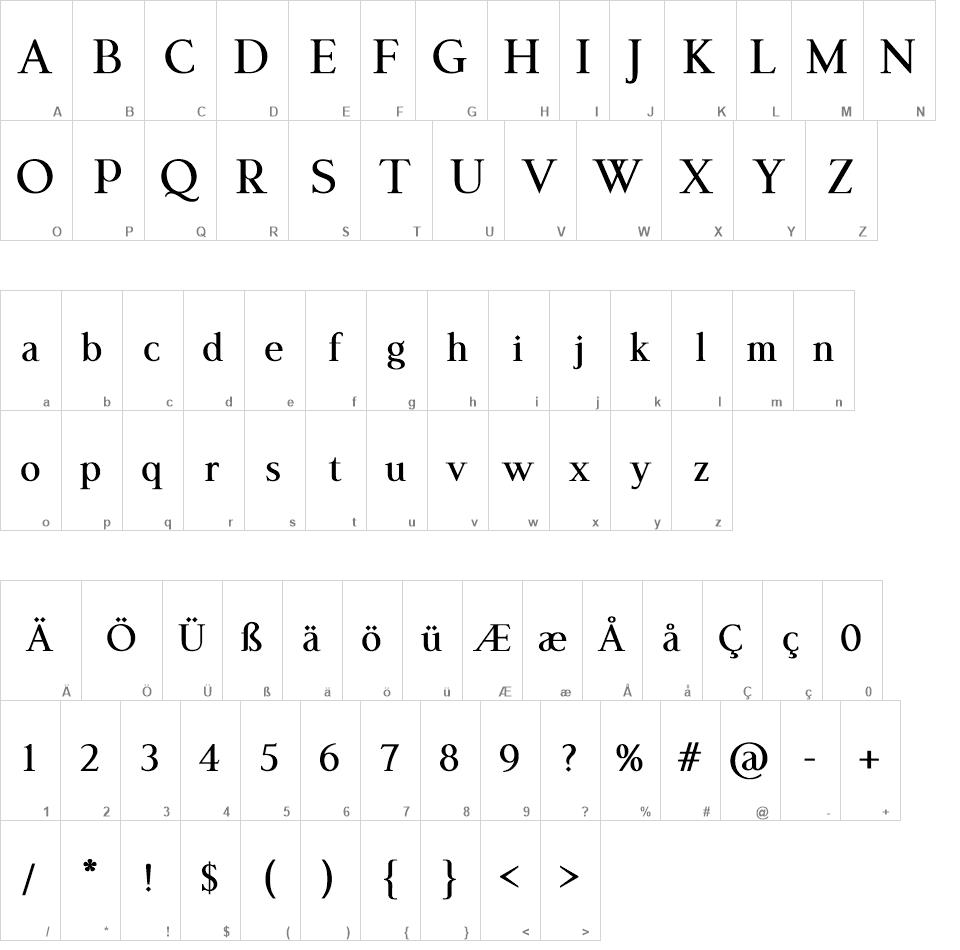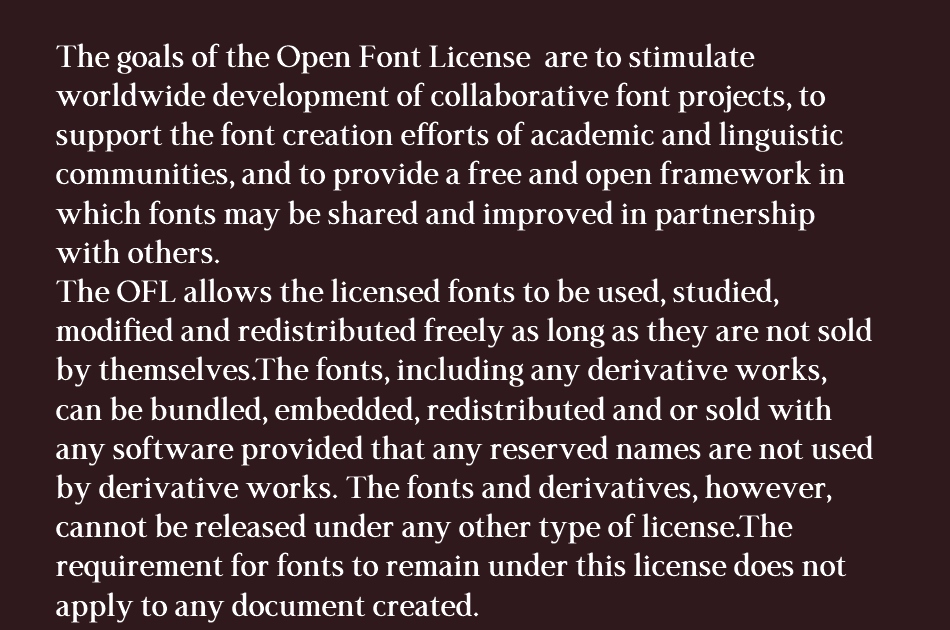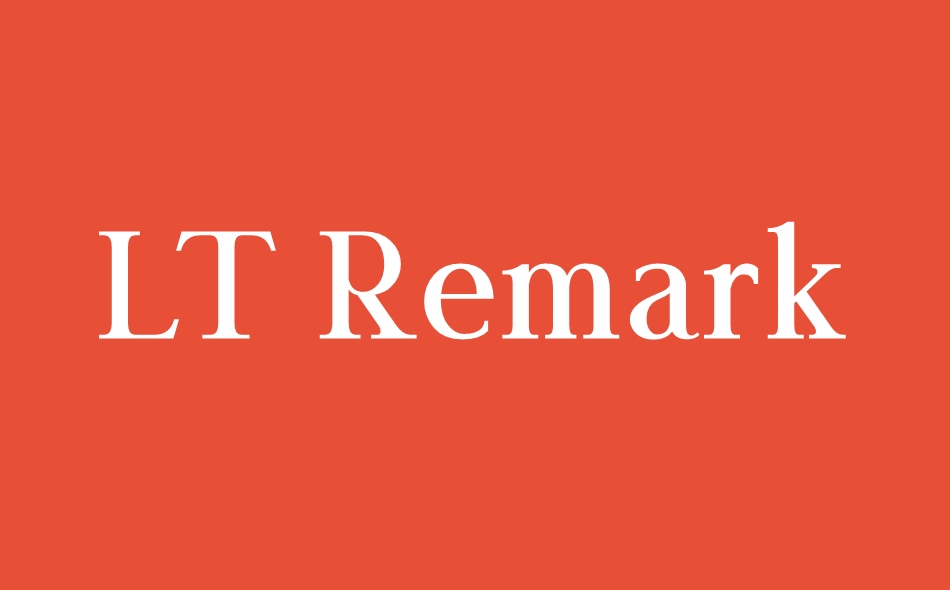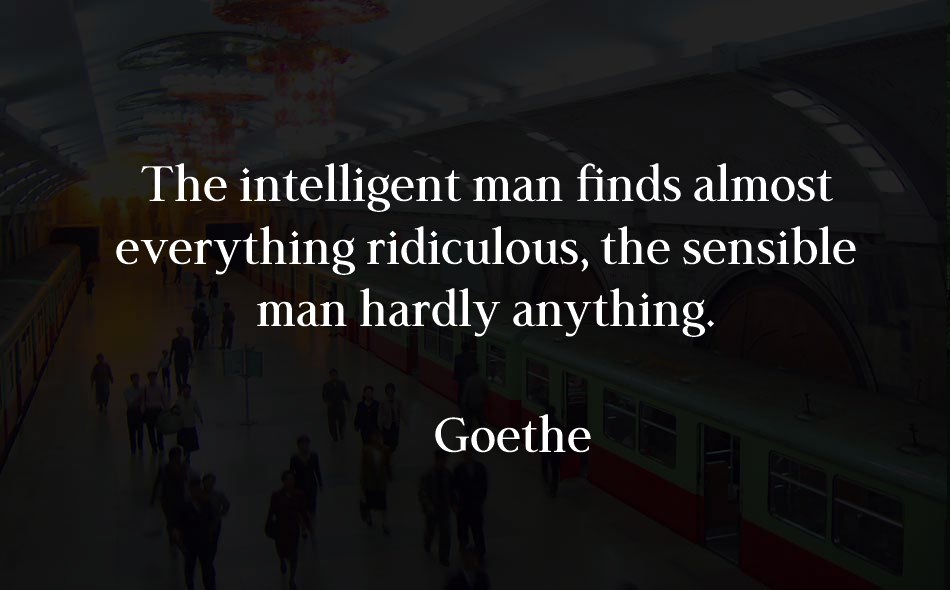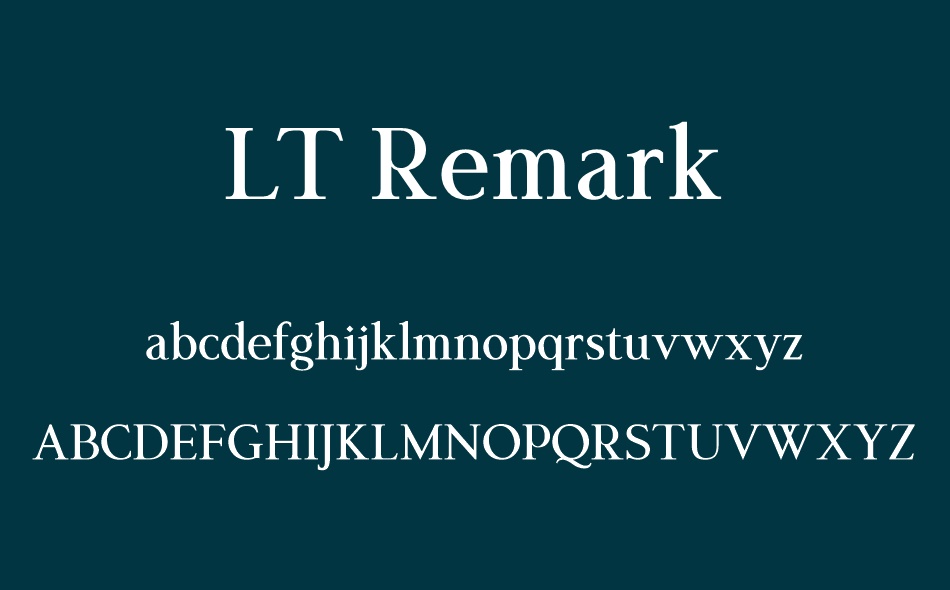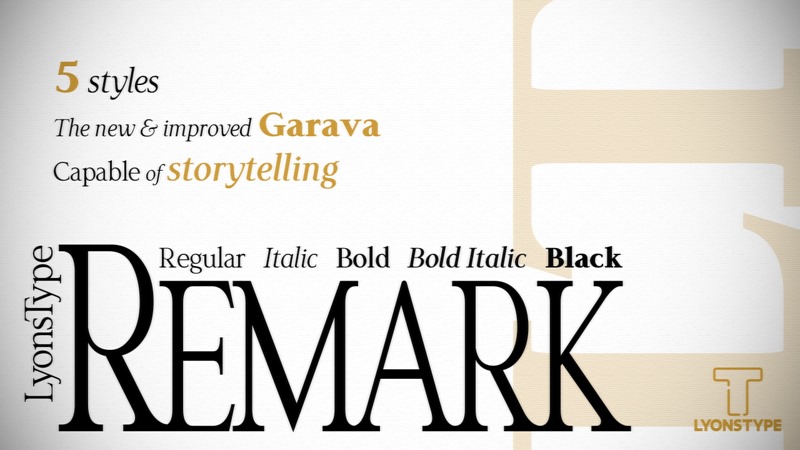
LyonsType introduces a storytelling-friendly font that goes by the name of "Remark" - which of course pays an accurate reference to one of Pesala's common fonts [that is mostly used for High-Logic's default font creating process with outlines] called Garava.
The beneficial elements of the font consist of the fact that unlike Garava, it supports any Slavic language like Russian, Serbian, Bulgarian, etc - including that the Greek lowercase letters are truly original, rather than blatantly taken from Times New Roman/Symbol.
The font comes with five styles, usable for e-books, and it can also be used for anything classical considering the classification of it.